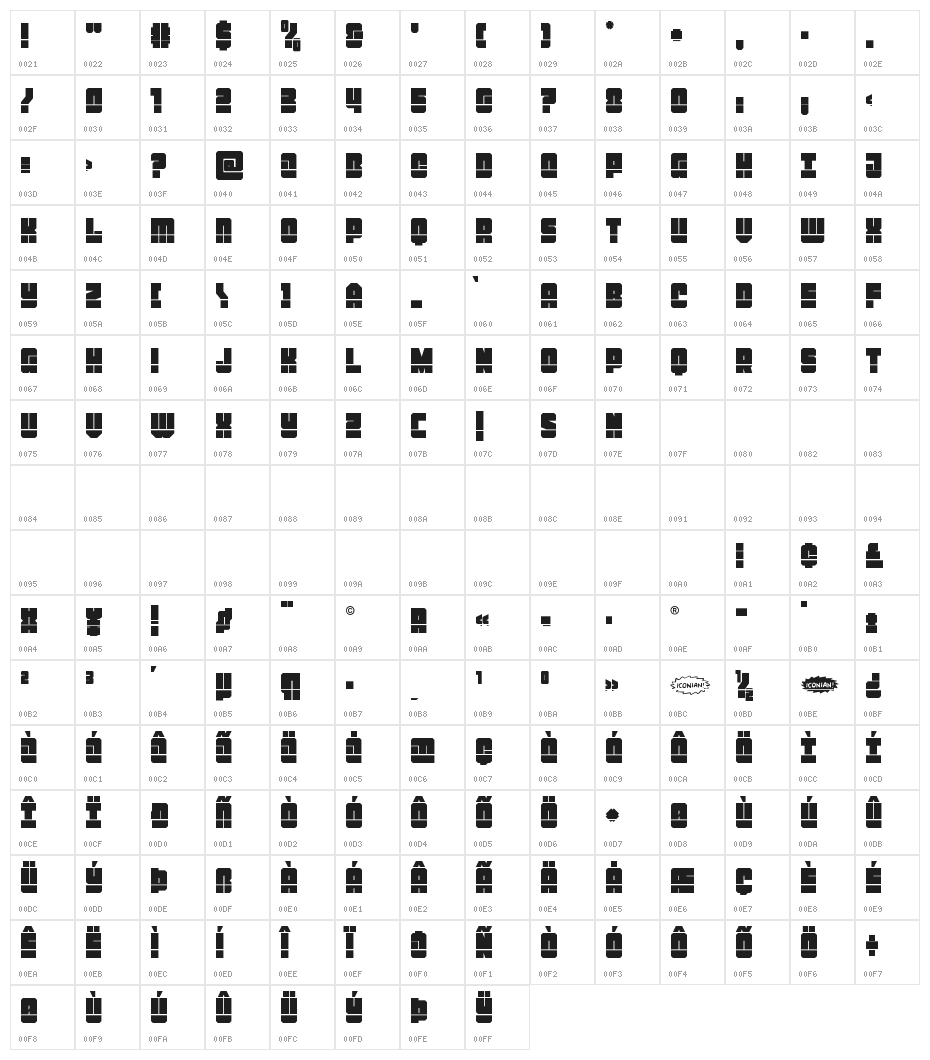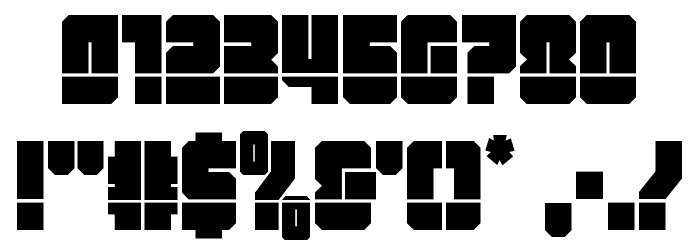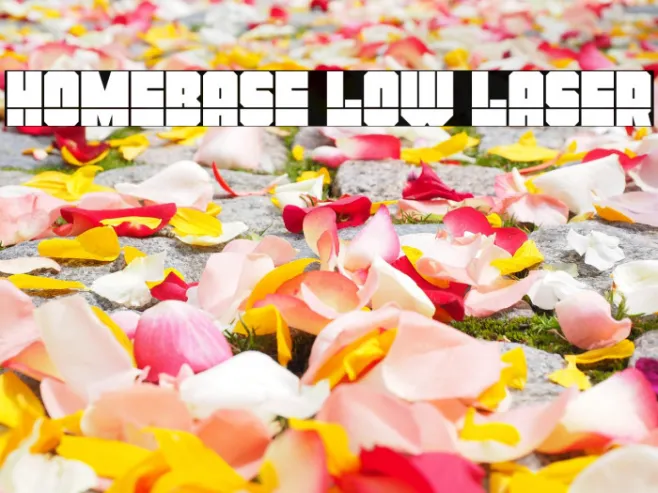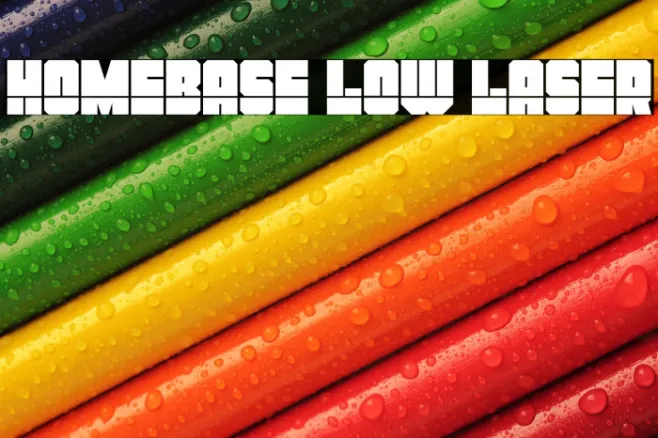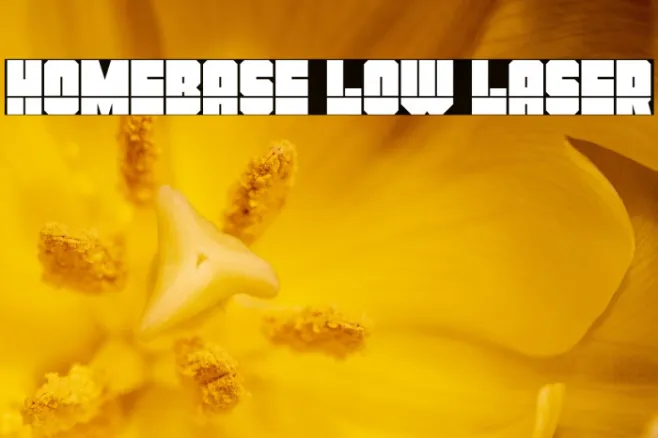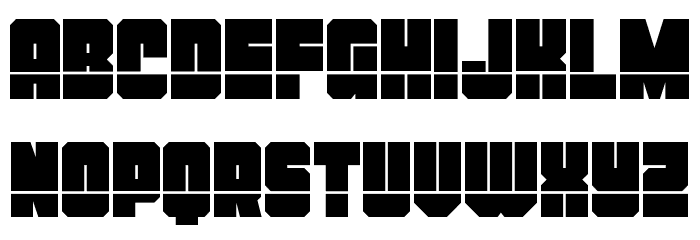
Homebase Low Laser Font
Homebase Low Laser Description
This font features a bold, geometric design with a futuristic and industrial feel. The characters are constructed with thick, block-like shapes that create a strong visual impact. Each letter and number is composed of angular lines and sharp edges, giving the font a mechanical and robust appearance. The uniformity in height and width across characters ensures a cohesive look, while the distinct separation between segments within each character adds a unique, segmented style. This font is ideal for projects that require a modern and edgy aesthetic, such as technology branding, sci-fi themed designs, or industrial-themed posters.
| Proposed Projects | Ideal for technology branding, sci-fi themed designs, industrial-themed posters, and modern logos. |